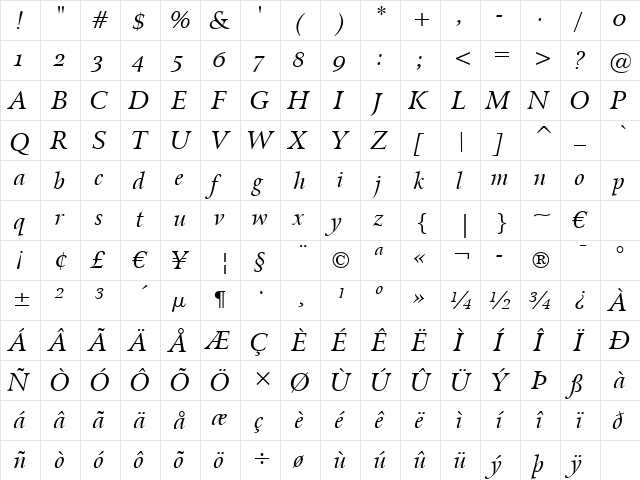
Arrus OSF BT Italic
Design Context for Arrus OSF BT Typeface
Arrus OSF BT takes a measured approach to typography — its balanced proportions and neutral character make it a reliable workhorse for both digital and print work. Its italic angle brings a sense of urgency and motion to the letterforms.
Pro Tip: Use Arrus OSF BT for emphasis, pull quotes, and subheadings where its slanted energy can add rhythm to the layout.